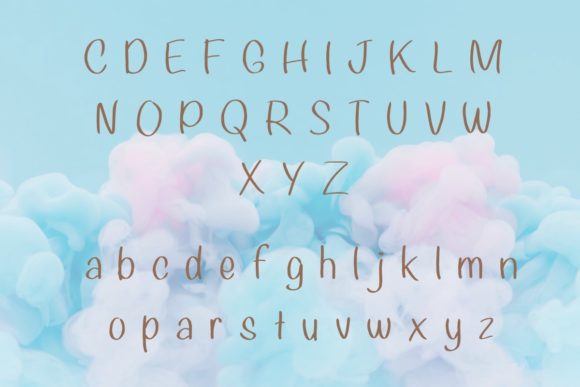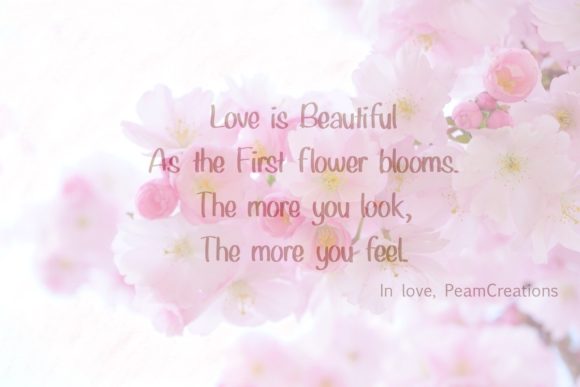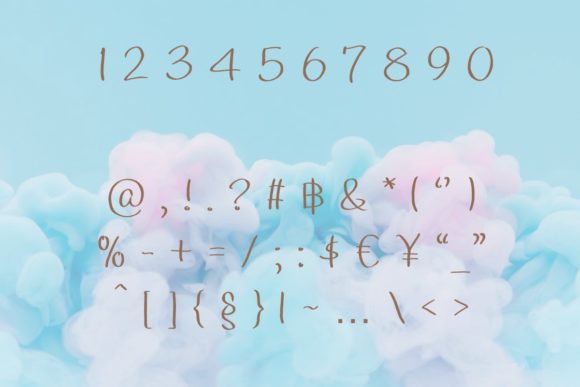
About Brighton Font
Brighton is a simple lettered, light and friendly handwritten font, featuring a lovely style. No matter the topic, this font will be an incredible asset to your fonts’ library, as it has the potential to elevate any creation.